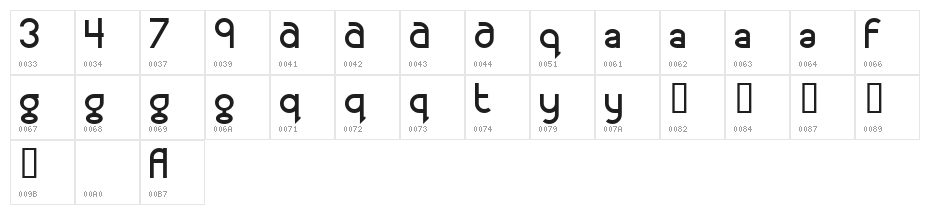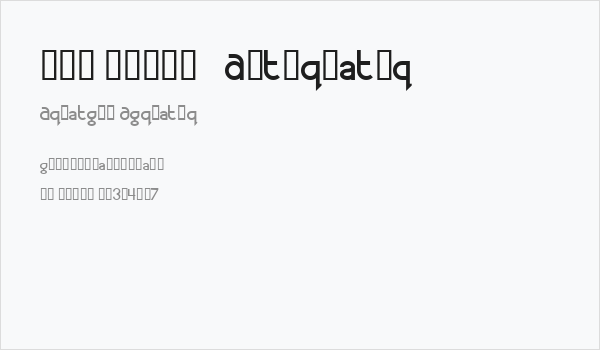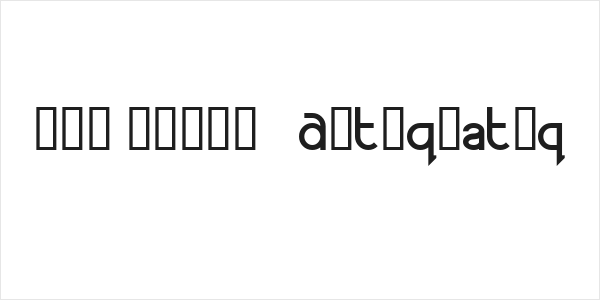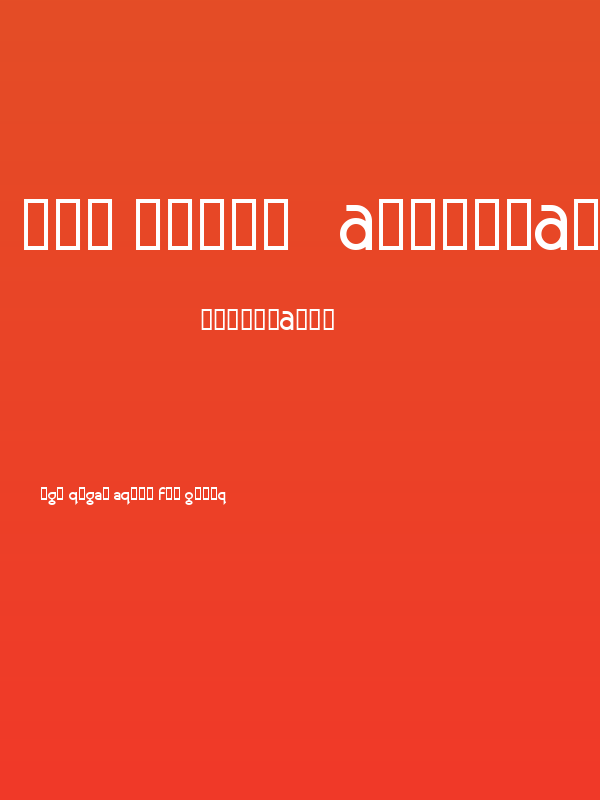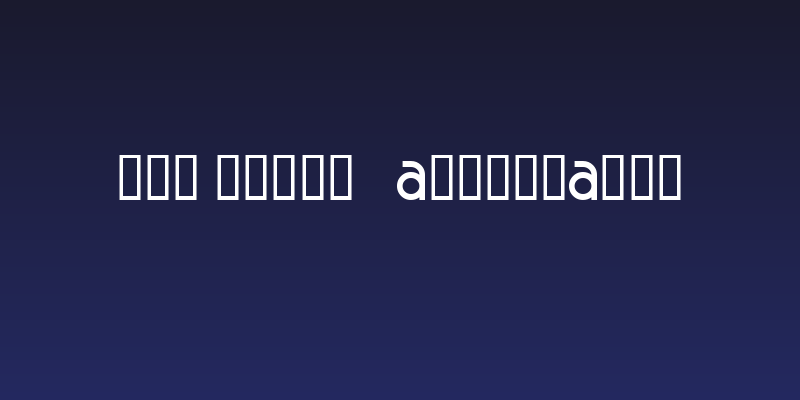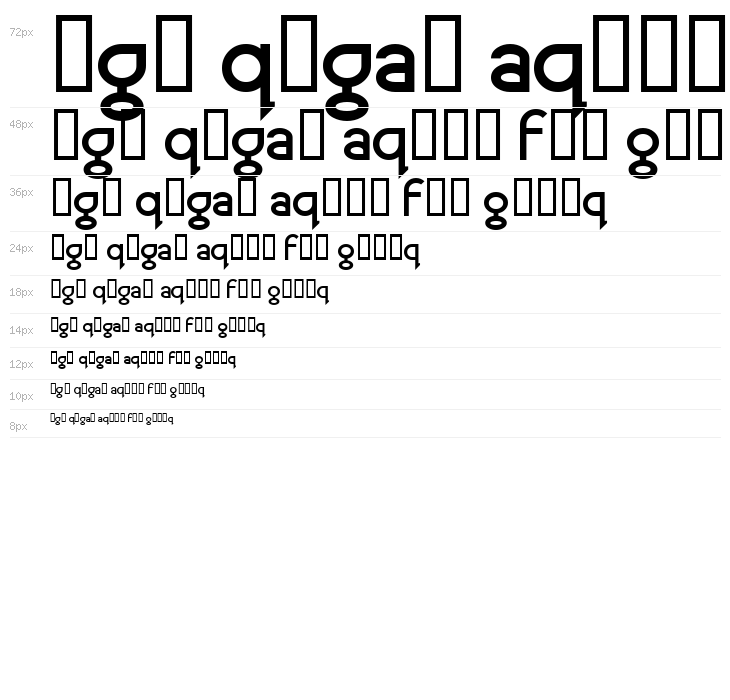
MR. PHONE Alternates Font
MR. PHONE Alternates Description
This font features a modern and geometric design with a focus on clean lines and rounded edges. The characters are bold and have a uniform stroke width, giving them a strong presence. The letters are slightly condensed, which adds to the compact and efficient look of the font. The numerals are consistent with the overall style, maintaining the same geometric and bold characteristics. The special characters are designed to match the aesthetic, ensuring a cohesive appearance across all glyphs. This font is suitable for projects that require a contemporary and professional look.